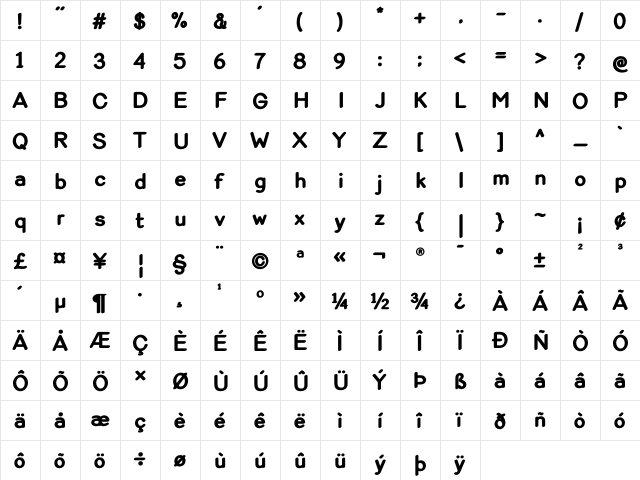
Violina Bold
| Foundry | Darwinoo |
| Designer | Darwinoo |
Design Context for Violina Typeface
Violina takes a measured approach to typography — its balanced proportions and neutral character make it a reliable workhorse for both digital and print work. Its bold stroke weight gives it real presence on the page.